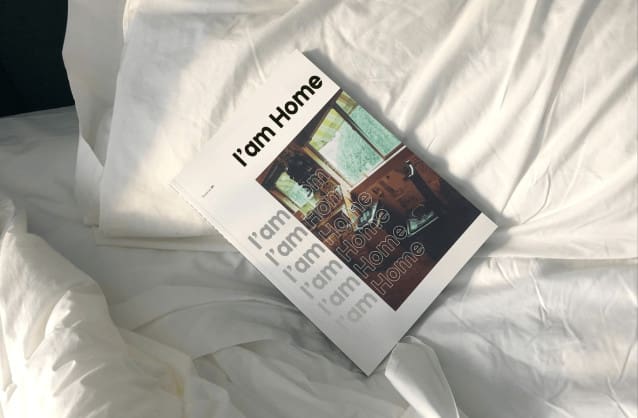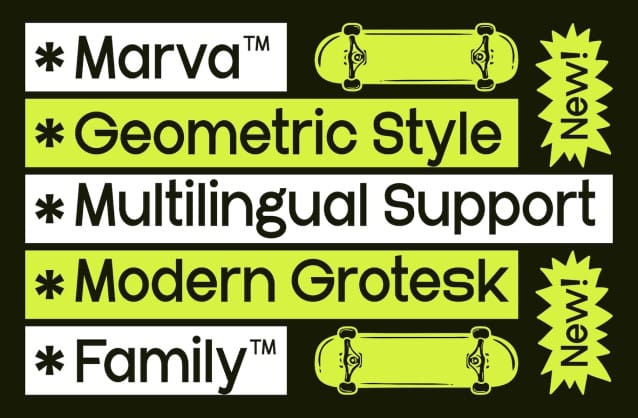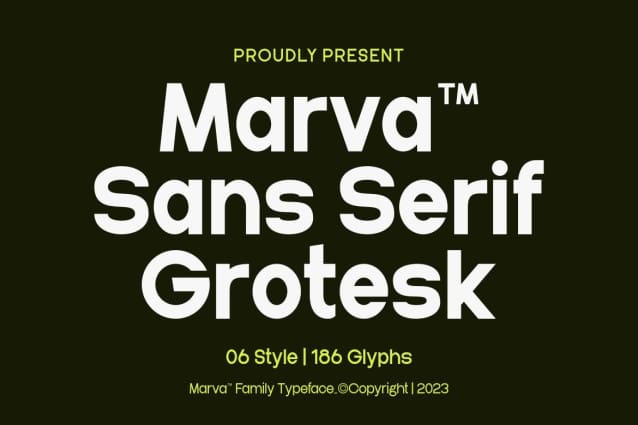
Marva Font
Marva Font – A Modern Sans Serif Font MarvaFont – An authentic modern sans serif display font . The font is suitable for any branding project like Logo, Template Design, Product and many more. It is remarkable in a wide range of contexts